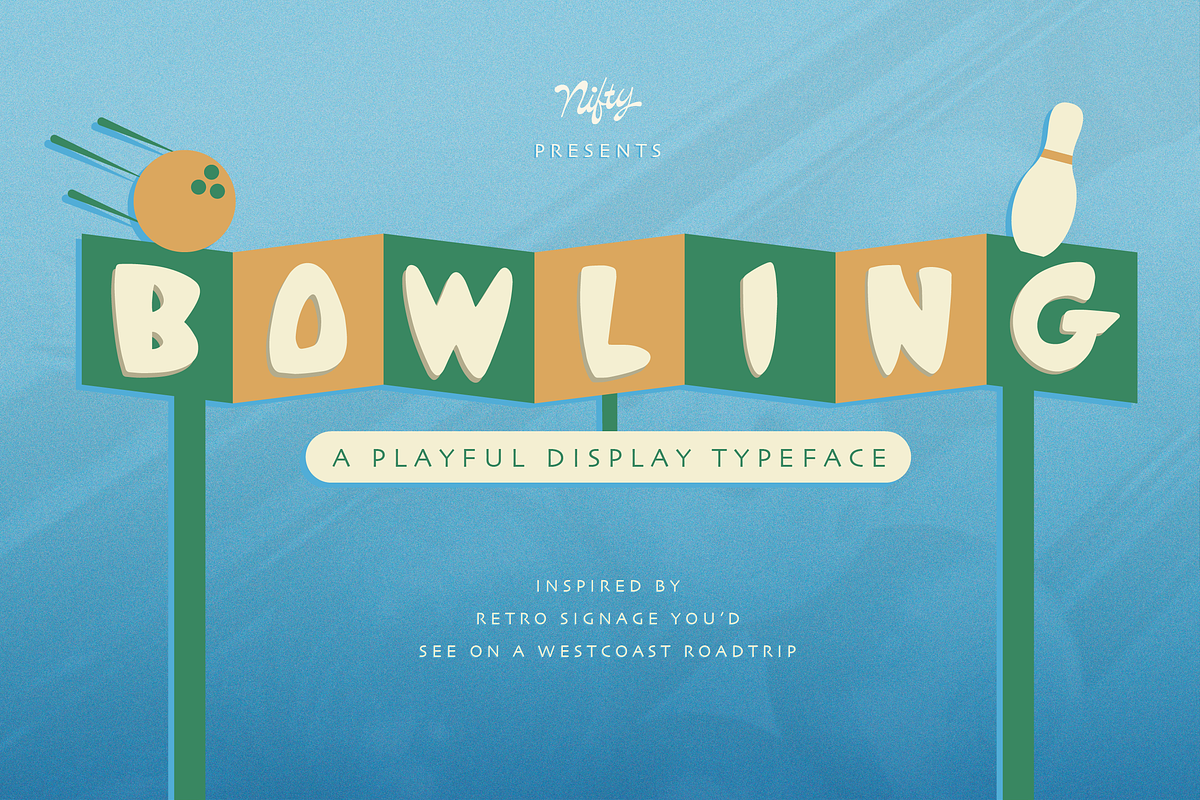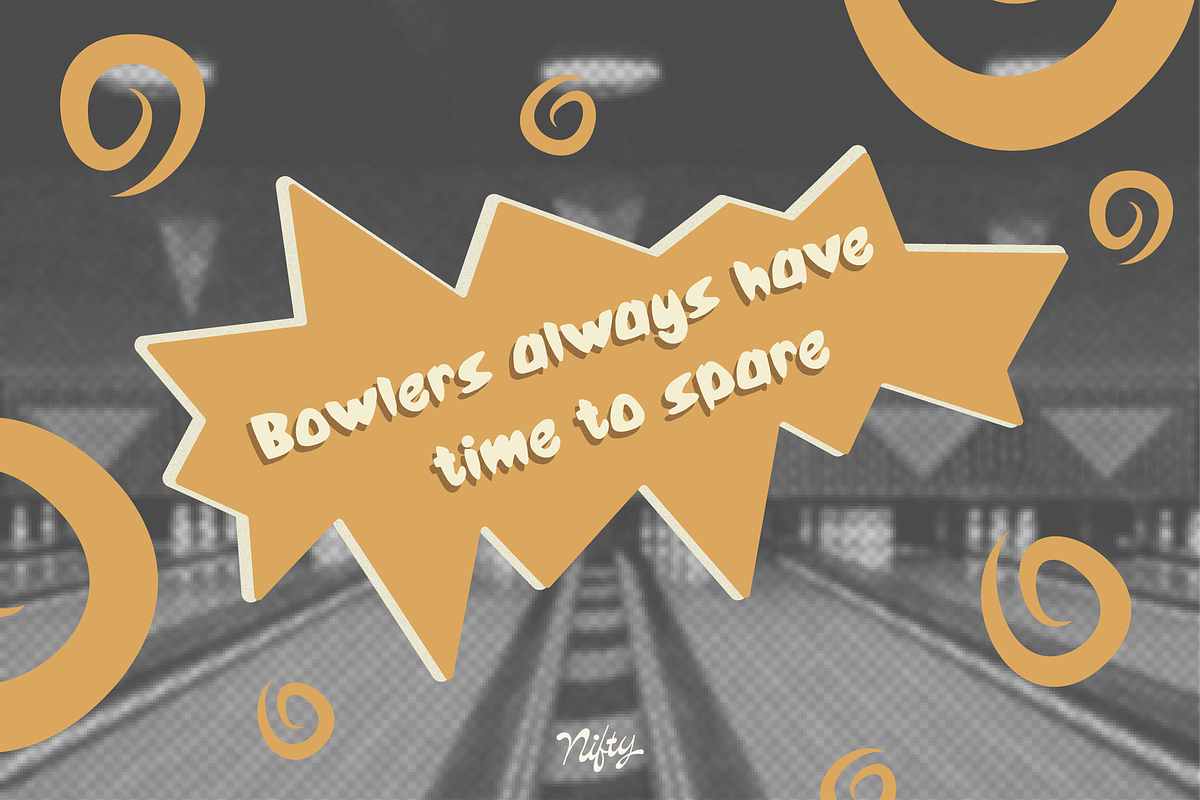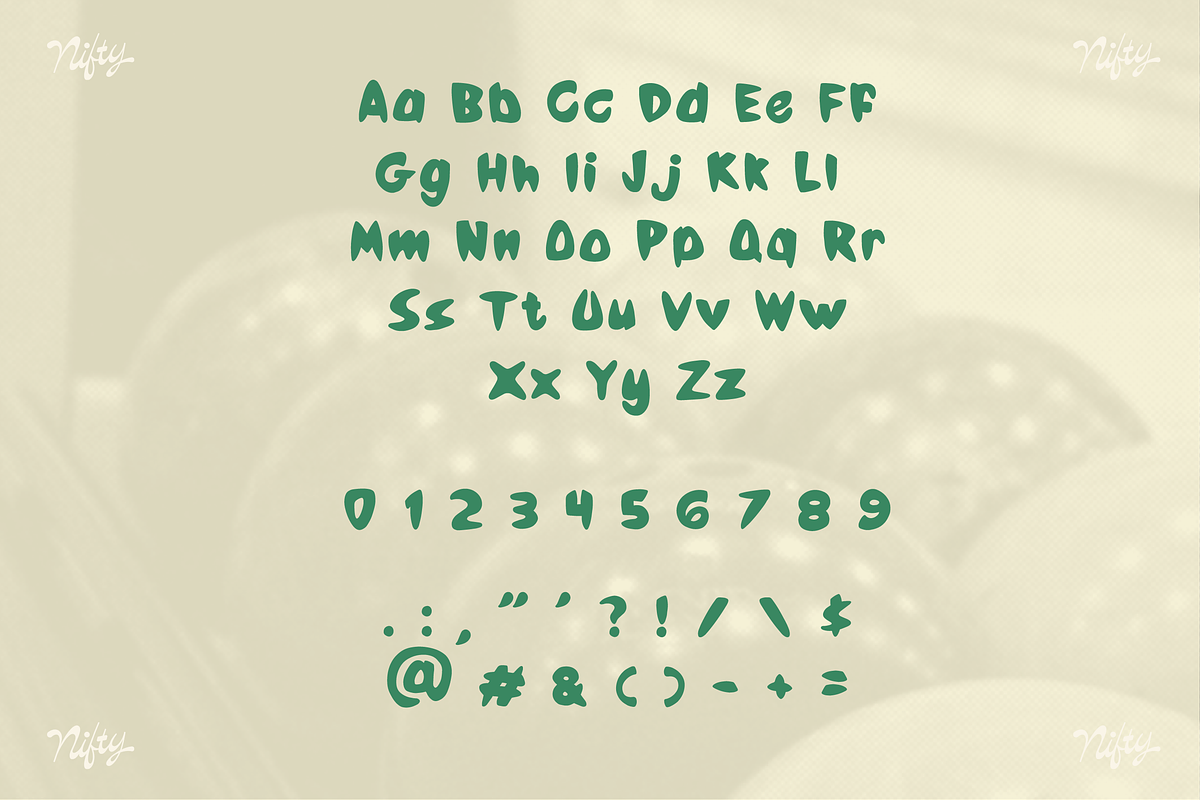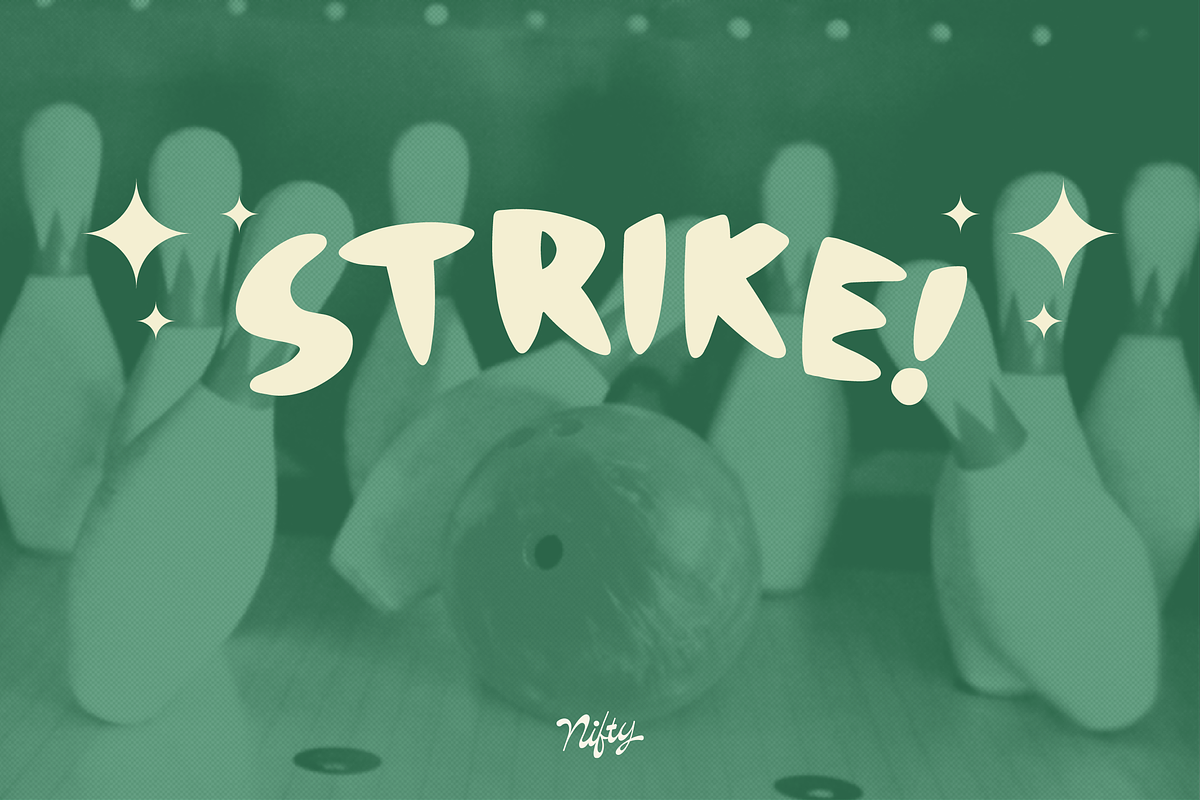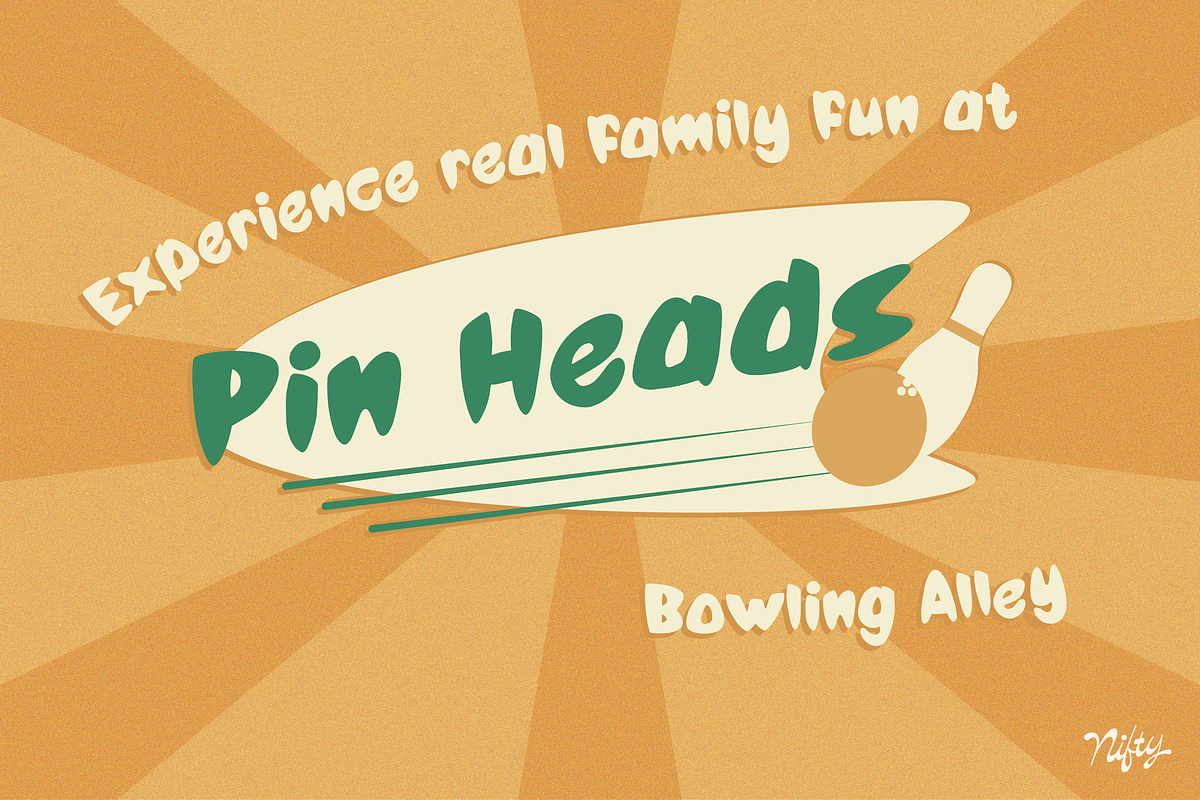
BOWLING by Nifty Branding
Bowling is a bold and playful display font models after retro bowling signage. Each letter, number and symbol were hand drawn by Nikki Dunn owner of Nifty Branding. It's perfect for your next retro design project!